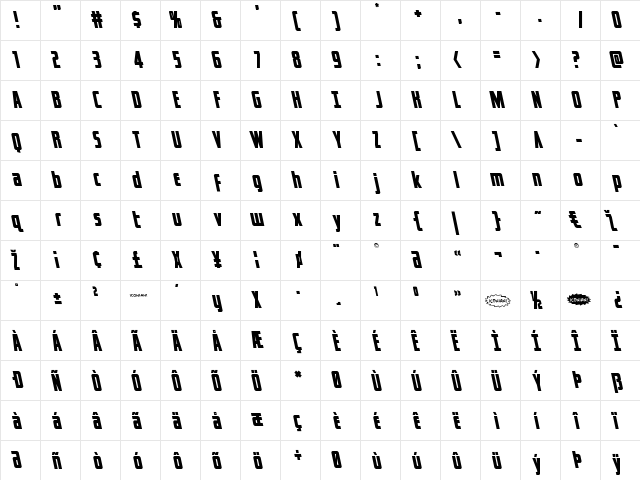
Captain Canaveral Leftalic Italic
Design Context for Captain Canaveral Leftalic Typeface
Captain Canaveral Leftalic offers clean, dependable letterforms without strong stylistic allegiance, making it a practical choice for designers who need flexibility. The slanted form adds forward momentum and visual energy.
Pro Tip: Use Captain Canaveral Leftalic for emphasis, pull quotes, and subheadings where its slanted energy can add rhythm to the layout.